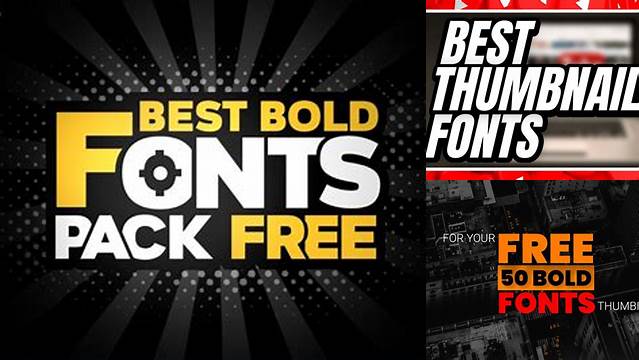
Best Bold Fonts For YouTube Thumbnails: The Ultimate Guide
Creating eye-catching YouTube thumbnails is crucial for attracting viewers and increasing click-through rates. Among the many design elements, the choice of fonts plays a significant role. Bold fonts, in particular, are highly effective in making your thumbnails stand out. Guys, in this comprehensive guide, we'll delve into why bold fonts are essential for YouTube thumbnails, explore various bold font options, provide tips for selecting the right bold fonts, and offer best practices for using them effectively. So, let's dive in and discover how to make your thumbnails pop with the perfect bold fonts!
When it comes to YouTube thumbnails, visibility is key. Your thumbnail is often the first impression viewers have of your video, and you want to make it a good one! Bold fonts are essential because they immediately grab attention. Think about it: when scrolling through a sea of videos, the ones with clear, bold text are much more likely to catch your eye. The increased thickness of bold fonts makes the text more legible, especially on smaller screens like smartphones, where most viewers are watching. This improved readability ensures that your message is conveyed instantly, even at a glance. Moreover, bold fonts help to emphasize key information, such as the video's title or a compelling call to action. By using bold fonts strategically, you can highlight the most important aspects of your video and entice viewers to click.
Bold fonts also contribute to the overall impact of your thumbnail. A well-chosen bold font can convey the tone and theme of your video, whether it's energetic, serious, or fun. For instance, a strong, bold sans-serif font might be perfect for a motivational video, while a playful bold font could be ideal for a comedy skit. The right bold font can significantly enhance the visual appeal of your thumbnail, making it more engaging and professional-looking. Remember, your thumbnail is essentially a mini-advertisement for your video, and bold fonts are a powerful tool for making that advertisement as effective as possible. Ultimately, using bold fonts in your YouTube thumbnails is a simple yet highly effective way to boost your video's visibility and attract more viewers. By making your text stand out, you're increasing the chances that people will click and watch your content. So, don't underestimate the power of a good bold font – it can make all the difference in your video's success!
Choosing the right bold font can significantly impact the effectiveness of your YouTube thumbnails. There's a wide array of options available, each with its own unique style and readability. Guys, let's explore some popular categories and specific bold font examples that work exceptionally well for thumbnails.
Sans-Serif Bold Fonts
Sans-serif bold fonts are characterized by their clean, modern lines and lack of decorative strokes (or serifs). This makes them highly legible, even at smaller sizes, which is crucial for thumbnails. Some standout sans-serif bold fonts include:
- Impact: This is a classic choice for thumbnails due to its extra-bold weight and condensed letterforms. It’s perfect for conveying a strong, attention-grabbing message.
- Bebas Neue: A very popular choice, Bebas Neue is a clean, tall, and bold sans-serif font that's highly readable. It provides a modern and professional look.
- Roboto Bold: Part of the Roboto family, Roboto Bold is a versatile font that works well in various contexts. Its clean and geometric design ensures readability and a contemporary feel.
- Montserrat Bold: This font offers a balanced and modern aesthetic, making it a great choice for a wide range of video topics. Its bold weight provides excellent visibility.
- Open Sans Bold: Open Sans Bold is another versatile option known for its clarity and readability. It’s a great choice if you want a font that looks clean and professional.
Serif Bold Fonts
Serif bold fonts feature small decorative strokes (serifs) at the ends of the letters. While traditionally used for print, some serif bold fonts can work well in thumbnails, adding a touch of elegance and sophistication. Here are a few notable examples:
- Baskerville Bold: Baskerville is a classic serif font that exudes elegance and authority. In bold, it can make a thumbnail look refined and trustworthy.
- Playfair Display Bold: This font has a high-contrast design, making it stylish and eye-catching. It’s best used sparingly to ensure readability, but it can add a touch of class to your thumbnails.
- Roboto Slab Bold: A slab-serif version of Roboto, this font has a more substantial and blocky appearance, making it highly readable and modern.
- Arvo Bold: Arvo is a geometric slab-serif font that's clear and bold, making it suitable for thumbnails that require a strong, modern serif look.
Display Bold Fonts
Display bold fonts are designed to be attention-grabbing and unique. They often feature distinctive characteristics that make them stand out. While they should be used judiciously, they can add a lot of personality to your thumbnails. Some popular display bold fonts include:
- Luckiest Guy: A quirky and fun hand-drawn font, Luckiest Guy is great for thumbnails aimed at a younger audience or videos with a playful theme.
- Permanent Marker: This font mimics the look of a permanent marker, giving it a bold, handwritten feel. It’s perfect for adding a personal touch to your thumbnails.
- Anton: A condensed and extra-bold sans-serif font, Anton is perfect for headlines and titles. Its strong presence makes it highly effective for thumbnails.
- Oswald Bold: Oswald is a classic display font with a modern twist. Its bold weight and rounded terminals make it highly readable and stylish.
Exploring these different categories and specific bold font options will help you find the perfect typeface for your YouTube thumbnails. Remember, the goal is to choose a font that not only looks good but also effectively communicates your video's message and entices viewers to click.
The key takeaway is that your thumbnail is often the first impression viewers have of your video, so make it count! A well-designed thumbnail with a compelling bold font can make all the difference in a viewer's decision to click and watch. So, experiment with different bold fonts, refine your design process, and continuously test and iterate to find what works best for your audience. With a strategic approach to bold fonts and thumbnail design, you can significantly increase your video's visibility and engagement on YouTube. Guys, go ahead and make those thumbnails pop!